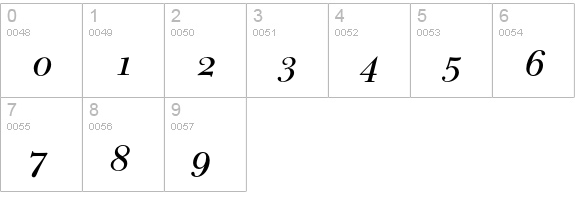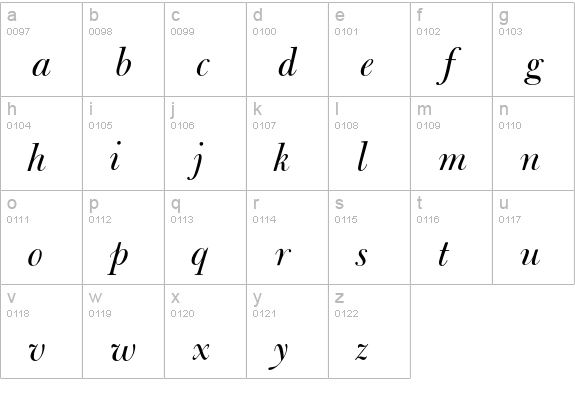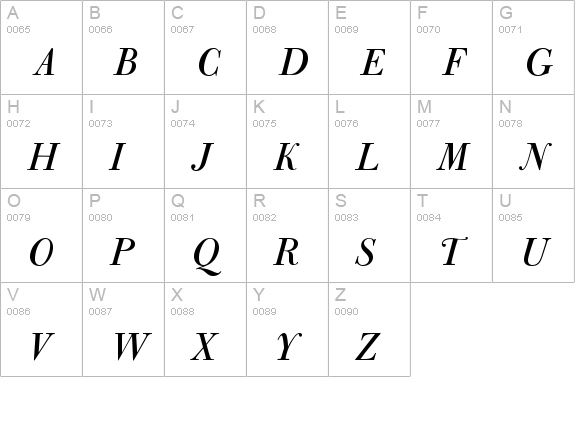
Bulmer-Swash Font Details
Bulmer-Swash is a stunning and elegant font that exudes sophistication and charm. With its unique swash elements and graceful curves, this typeface is perfect for adding a touch of luxury to any design project. The intricate details of Bulmer-Swash make it stand out and draw attention to any text it is applied to. What makes Bulmer-Swash even more appealing is that it is available for free download at FontsMarket.com. This means you can easily access this beautiful font and incorporate it into your work without any cost. Whether you are working on a branding project, invitation design, or any other creative endeavor, Bulmer-Swash is sure to elevate your design with its timeless style and exquisite details. Don't miss out on the opportunity to enhance your projects with the beauty of Bulmer-Swash. Download this stunning font for free today at FontsMarket.com and experience the elegance and sophistication it brings to your designs.